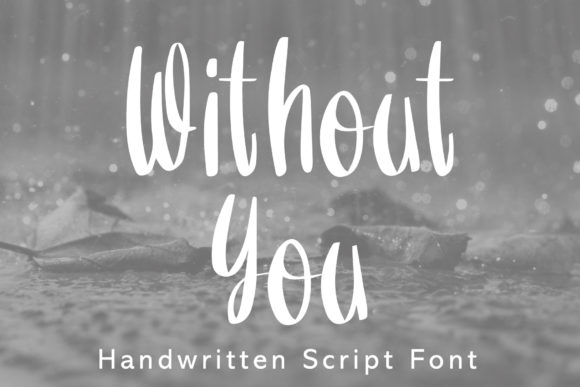
Step into a world of captivating aesthetics with Without You, the ultimate script font family designed to leave an unforgettable impression. Its passionate characters, reminiscent of heartfelt penmanship, will ignite your creativity and transport you to a realm of visual delight. From striking logos that command attention to utterly enchanting branding that enchants the senses, Without You is your gateway to a design universe brimming with possibilities.
Within Without You's graceful curves and elegant strokes lies a hidden power, a magnetic pull that draws viewers into your creations. Every letter, meticulously crafted with love and passion, carries a unique charm that dances across the screen, inviting audiences to bask in the beauty of your designs. Whether you're a seasoned pro or a budding artist, Without You is your muse, guiding you towards masterpieces that capture hearts and minds.
With Without You, the digital world becomes your canvas, a vibrant tapestry waiting to be adorned with your artistic vision. Its effortless adaptability makes it the perfect companion for a myriad of projects, from social media posts that spark conversations to websites that leave a lasting impact. Unleash your creativity and let Without You be your trusted ally in the realm of visual storytelling.